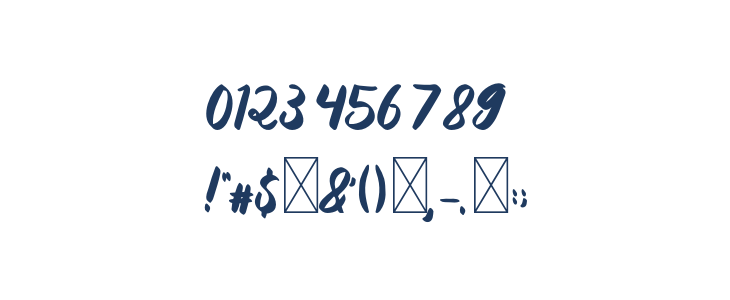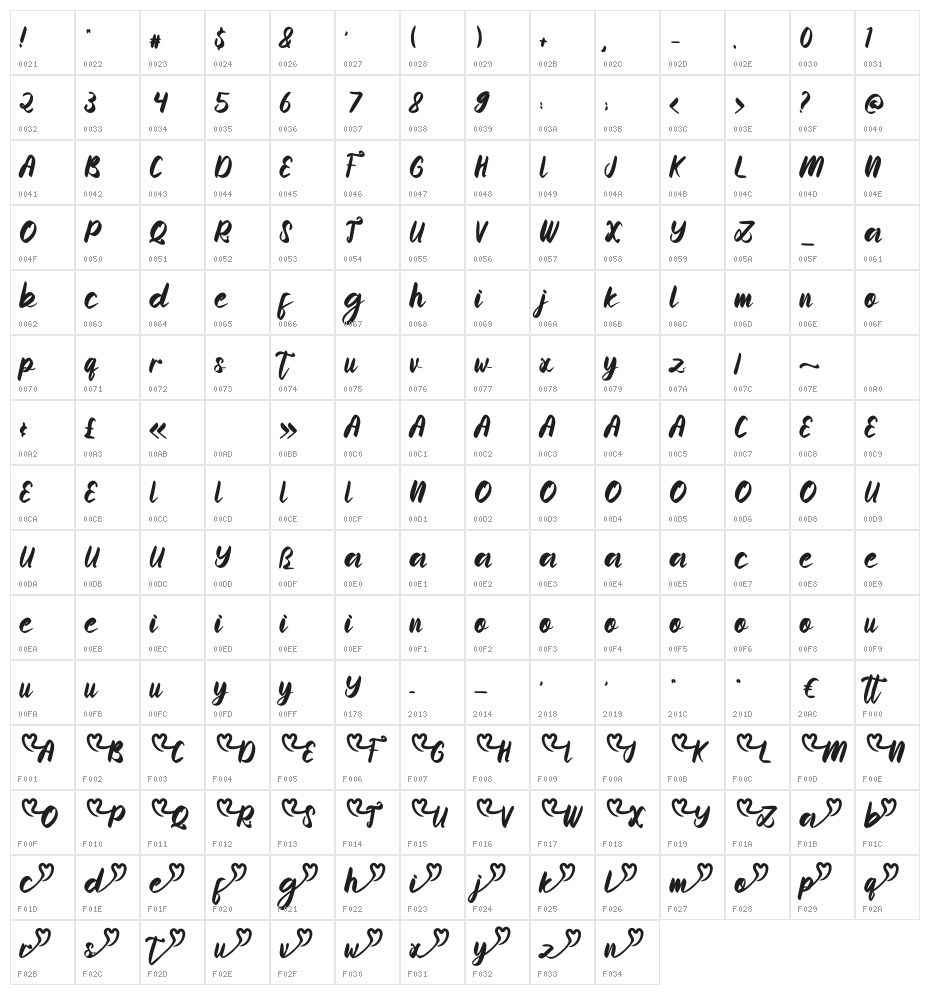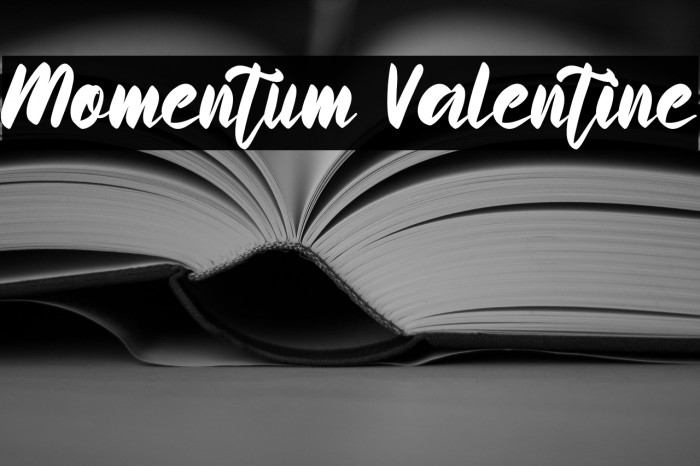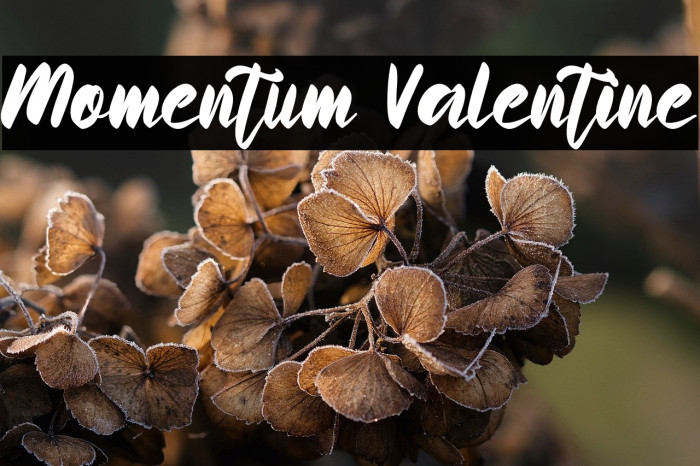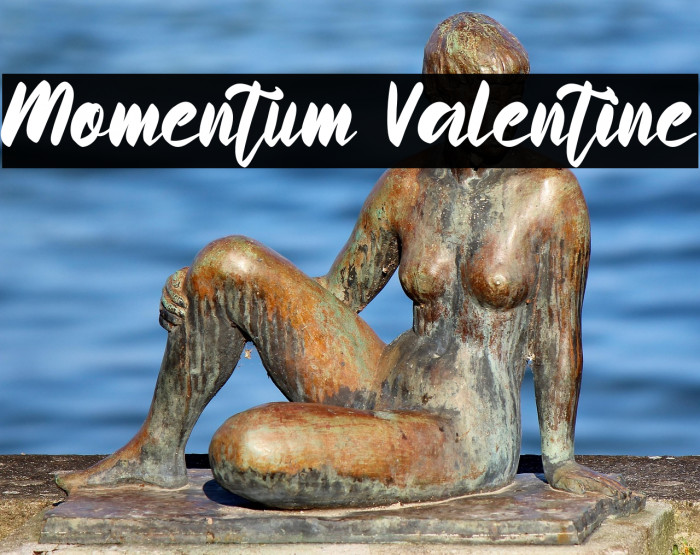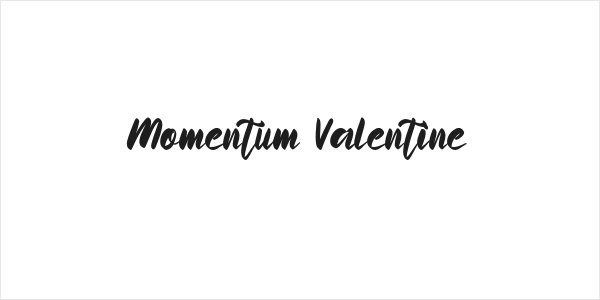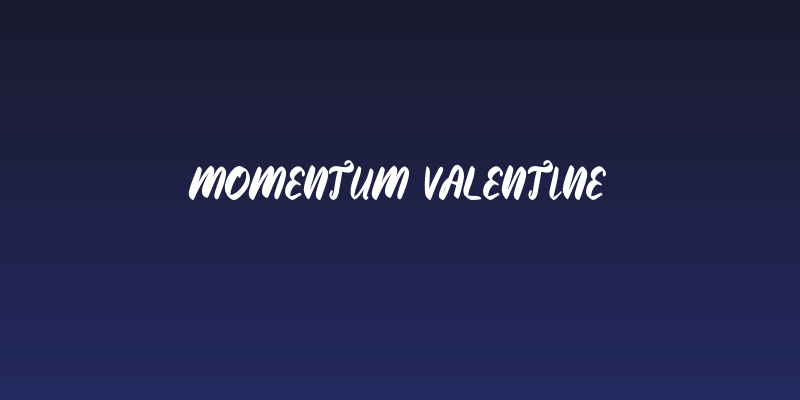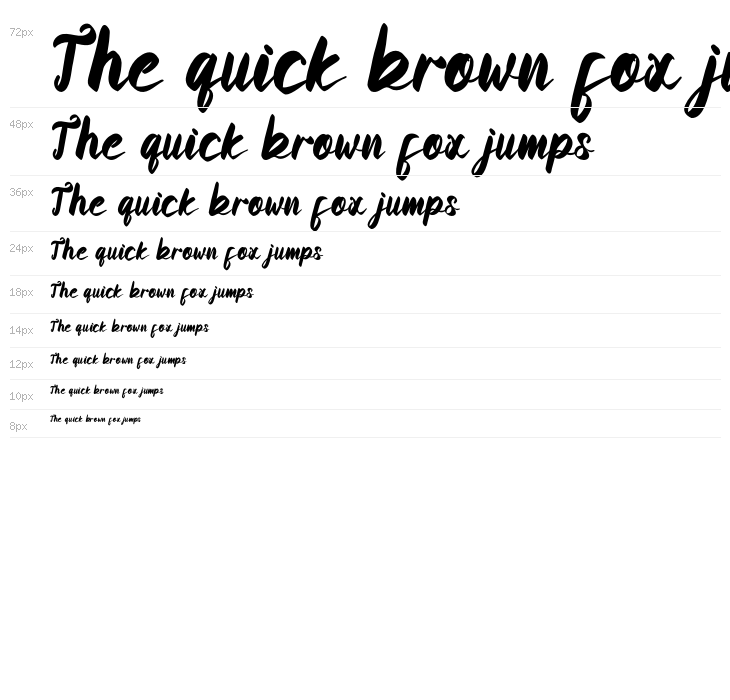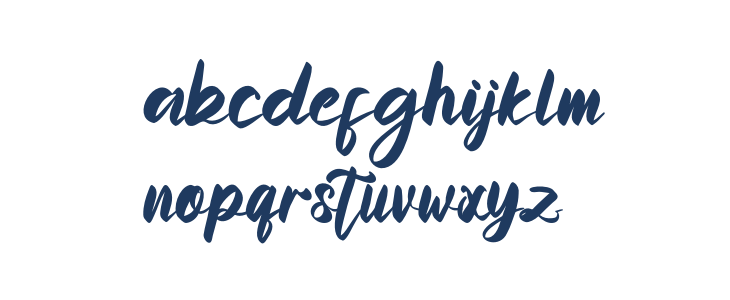
Momentum Valentine Font
Momentum Valentine Description
This font exudes a playful and romantic vibe, characterized by its bold, flowing script style. The letters are connected with smooth, sweeping strokes that give it a handwritten appearance. The uppercase letters are particularly striking, with dramatic flourishes and loops that add a sense of elegance and movement. The lowercase letters maintain this fluidity, creating a cohesive look that is both stylish and approachable. The numbers and special characters are designed with the same attention to detail, ensuring consistency across all elements. This font is perfect for projects that require a touch of personality and charm.